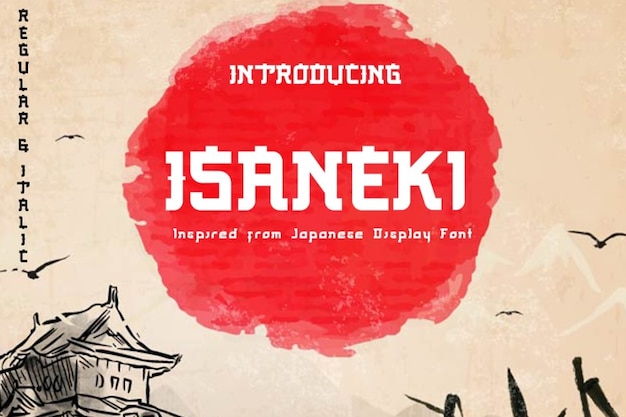
Isaneki Font
Haksen Studio
Isaneki is a refined font inspired by traditional Japanese and Asian aesthetics. Its clean, elegant lines evoke the simplicity and beauty of Japanese design, making it perfect for branding, packaging, and cultural projects. With a touch of modern flair, Isaneki adds a sophisticated, Asian-inspired style to any design, capturing the essence of Japan’s artistry.